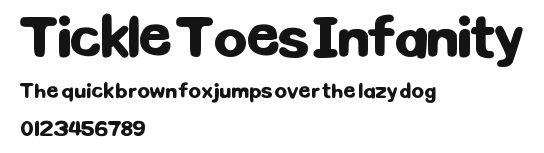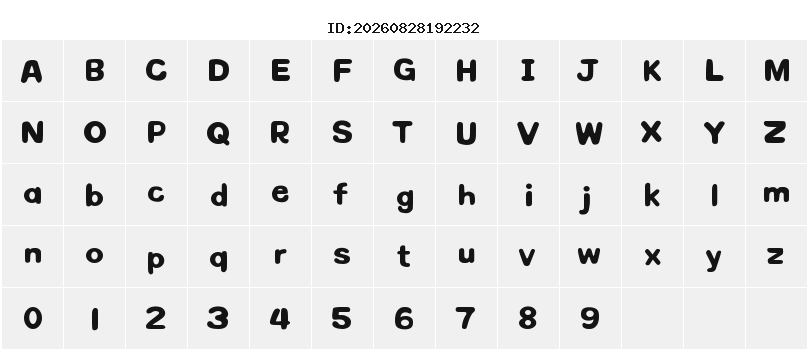
Tickle Toes Infanity Preview
• Font Name: Tickle Toes Infanity
• Full Font Name: Tickle Toes Infanity
• Version: Version 1.00 December 3, 2013, initial release
About Tickle Toes Infanity.ttf
Tickle Toes Infanity.ttf is a modern, elegant sans-serif font designed for ultimate readability and visual harmony. Perfect for branding, headlines, web design, and print materials.